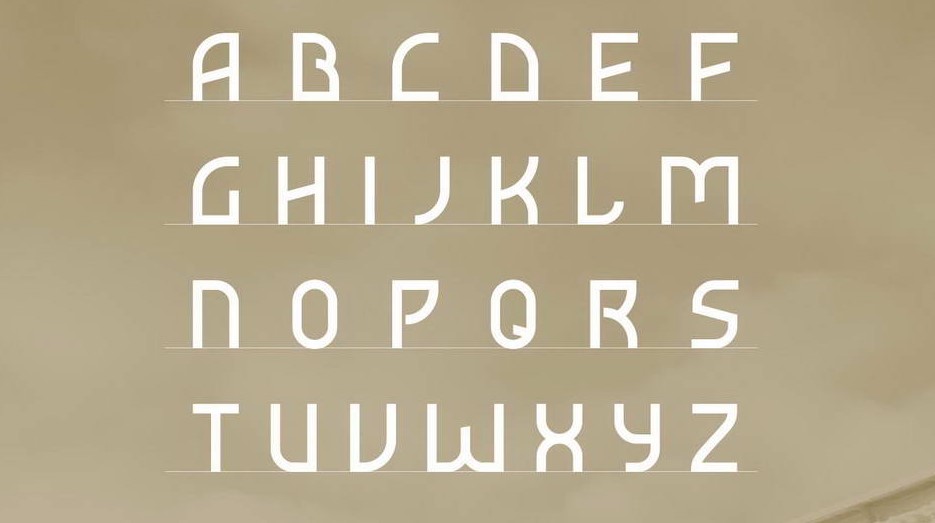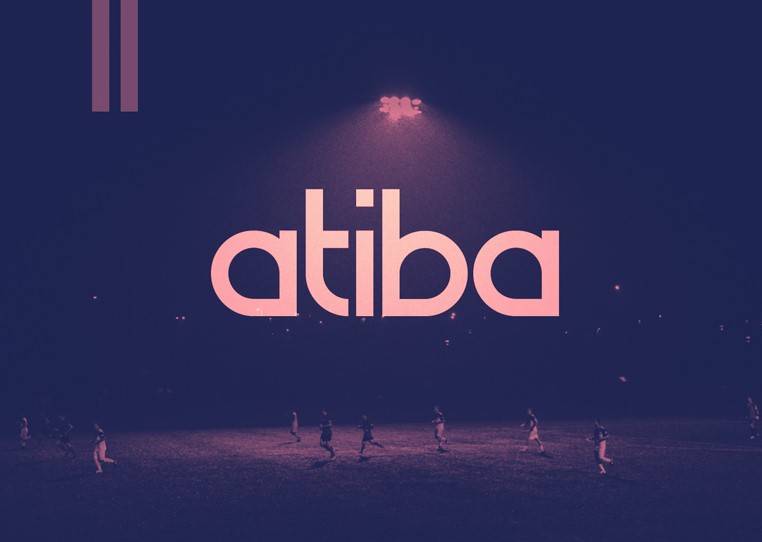
Atiba Font
Here is the Atiba Font that falls into the category of modern fonts. This is a fundela typeface that is similar to the audiowide font. The designer of this typeface is Ozan Karakoc. The actually famous content material fabric author from calligraphy font the all right reserved for this elegant typeface.
And he creates it for financial rolling stone font gift-day writing and springs. He has taken the idea from which modified into as fast as launched. In this manner. It supports many kinds of worldwide languages.
The font family has Uppercase Letters Lowercase letters, Numbers and some useful symbols, etc. It has TTF features and is free for commercial use only.